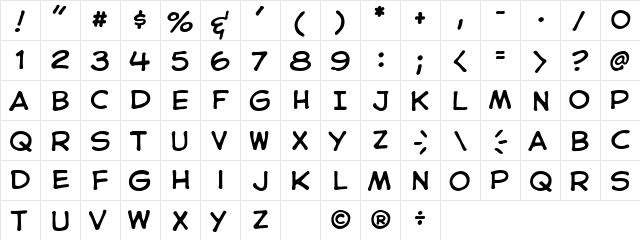
CC Astro City Regular
Design Context for CC Astro City Typeface
CC Astro City offers clean, dependable letterforms without strong stylistic allegiance, making it a practical choice for designers who need flexibility.